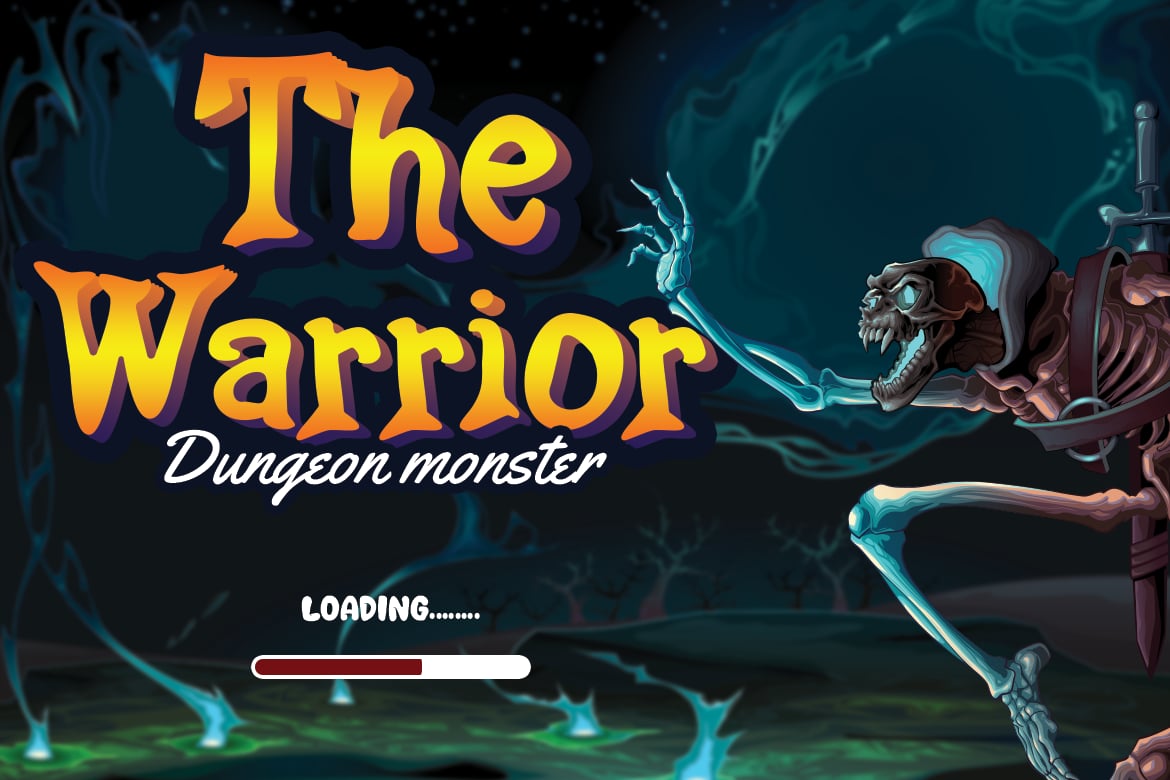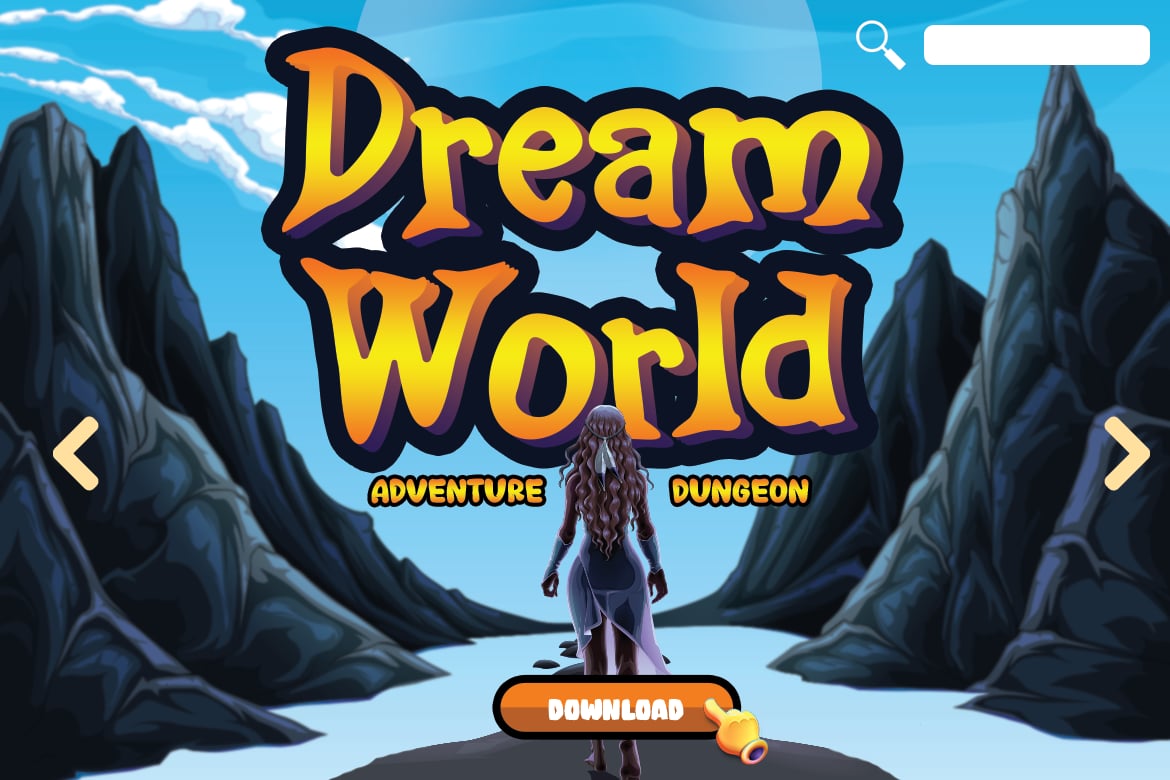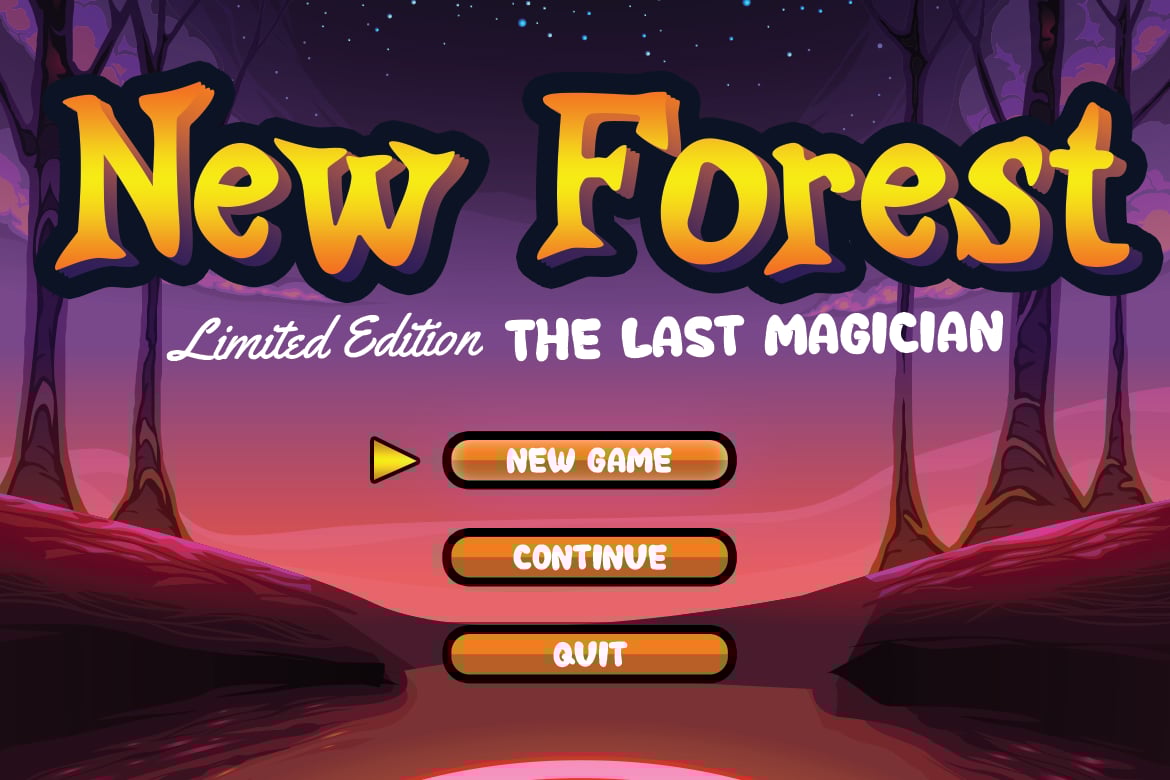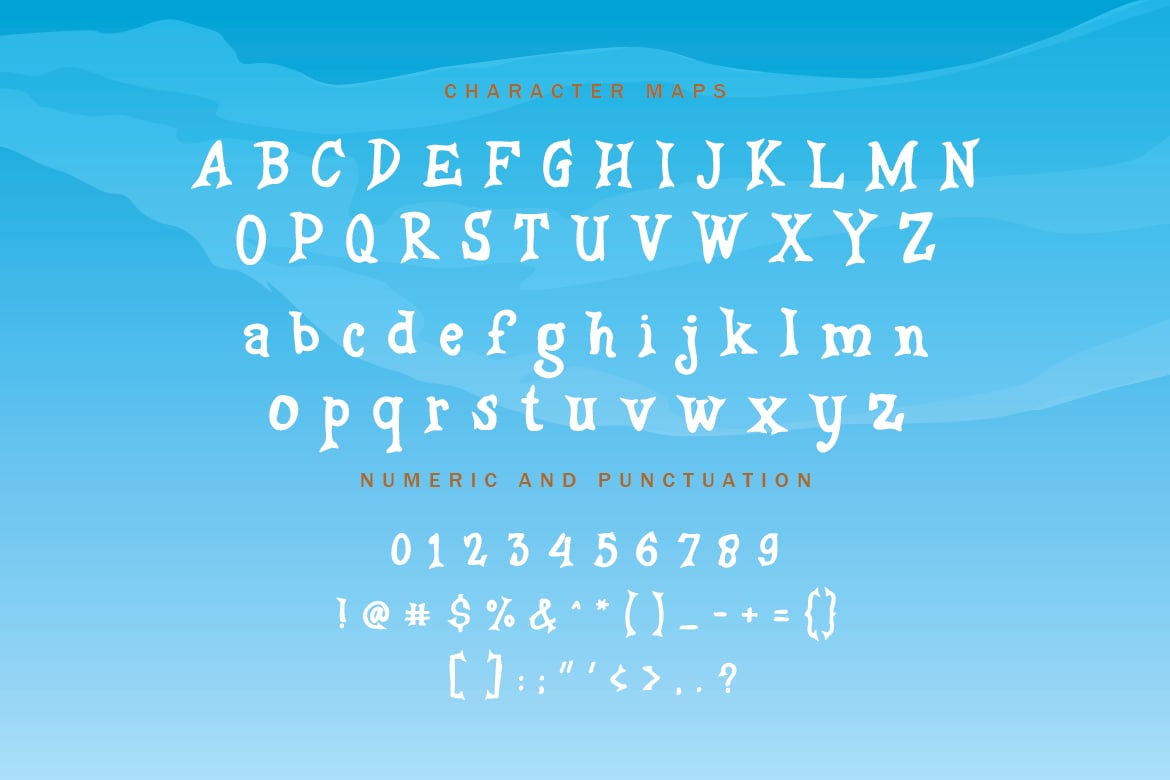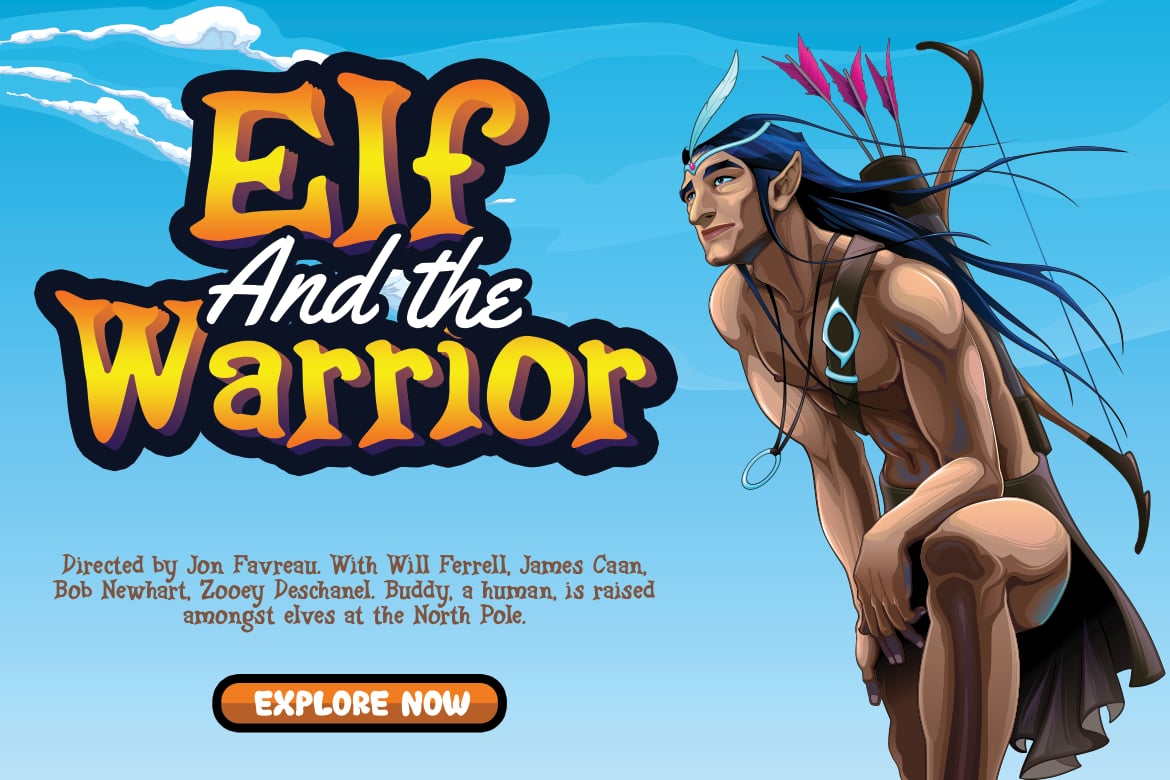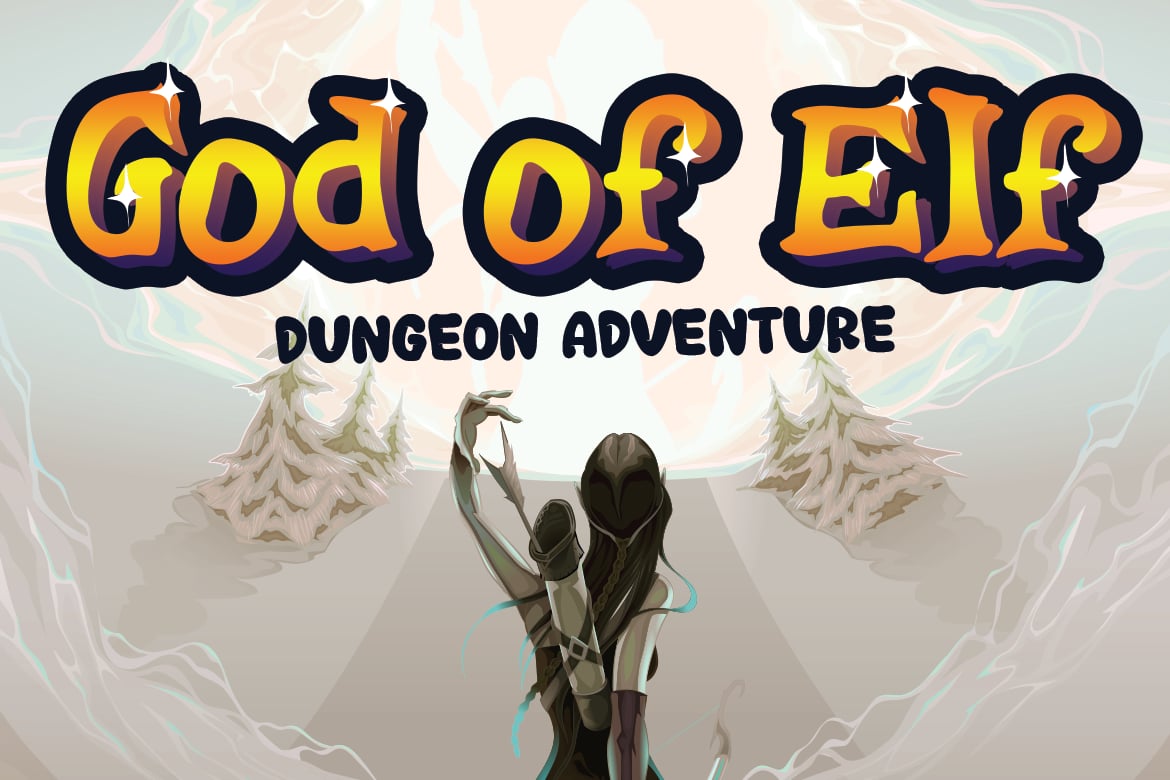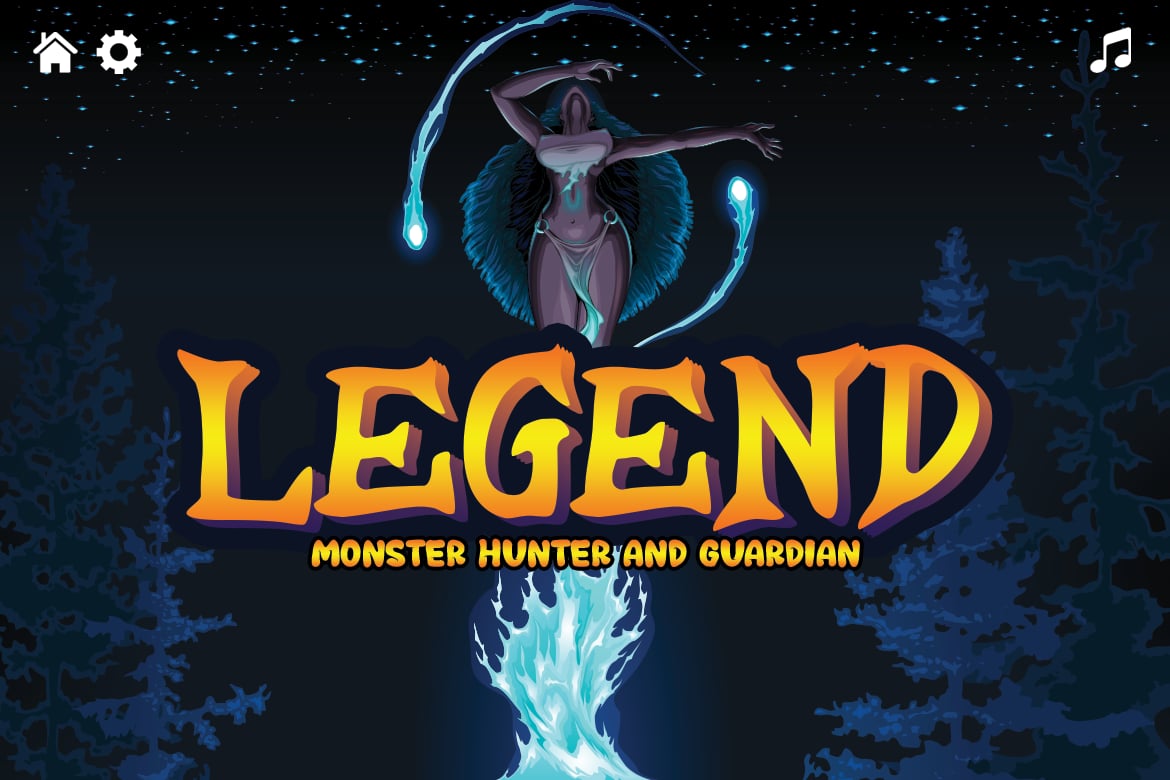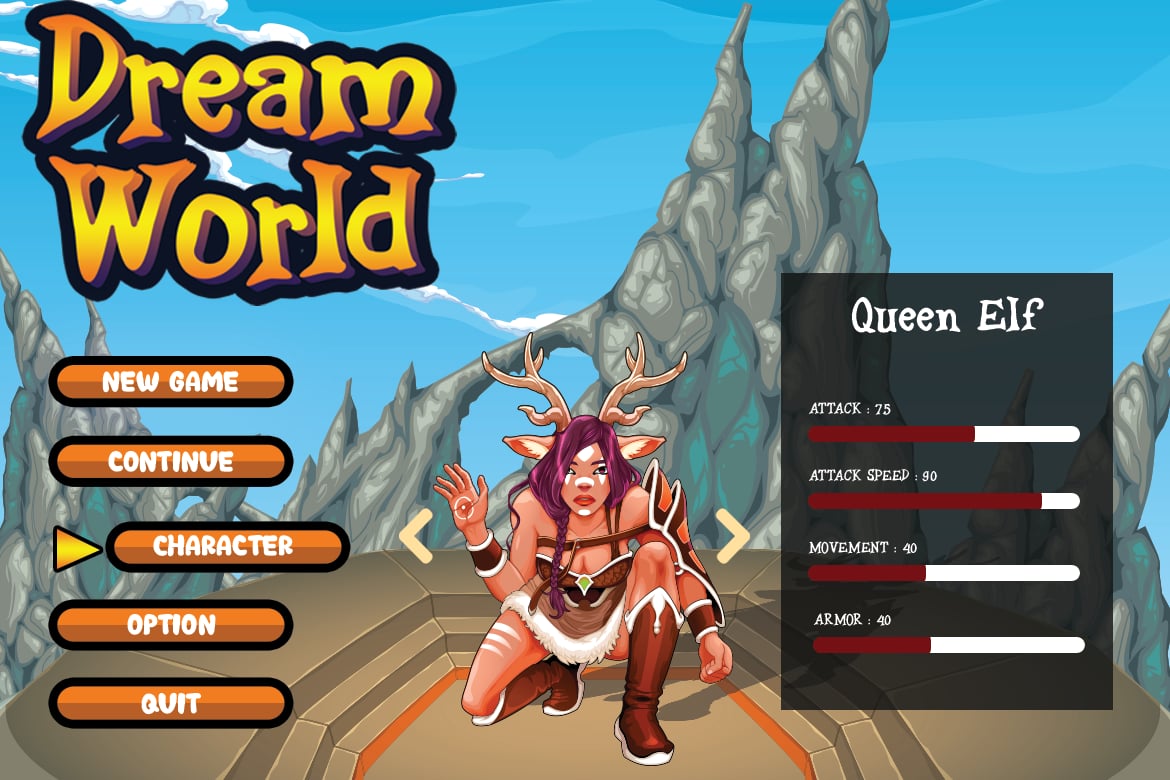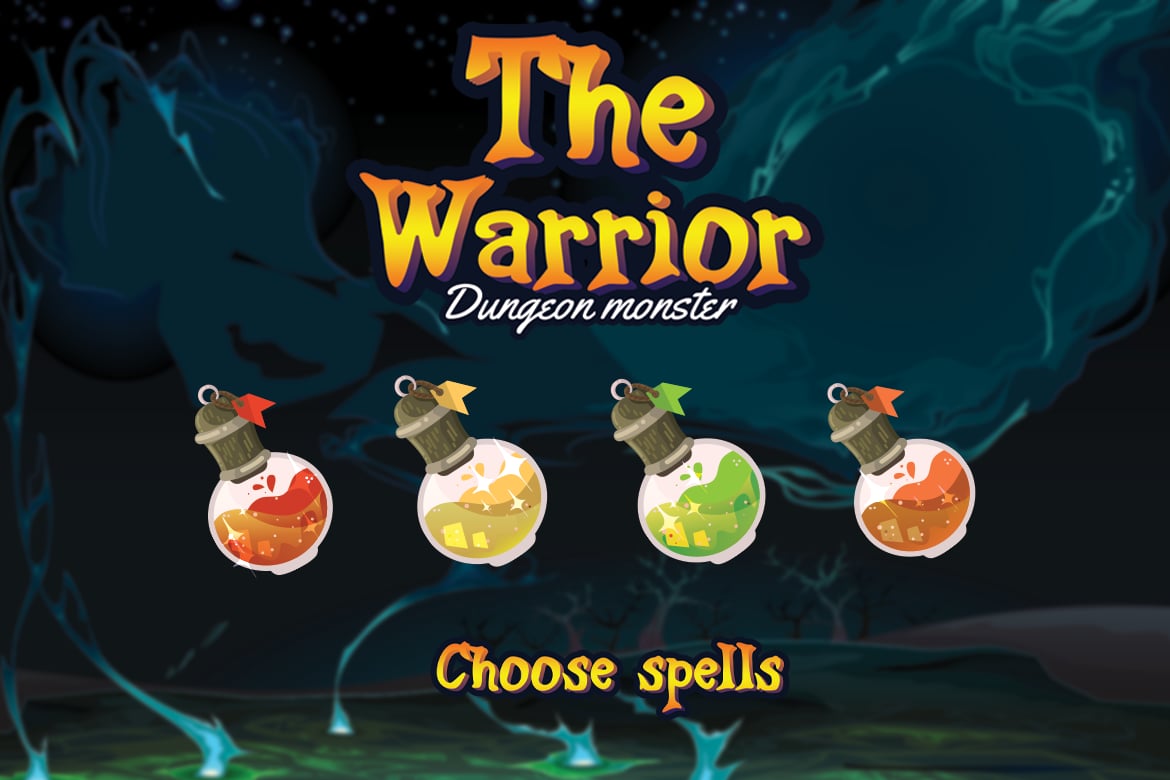
Magical World – Fancy font
Imagine the world of wizard, mythology, and legendary fight between Elf, Human, Orc, and Dwarf in the middle earth.
Magical World is the main and only choice to go.